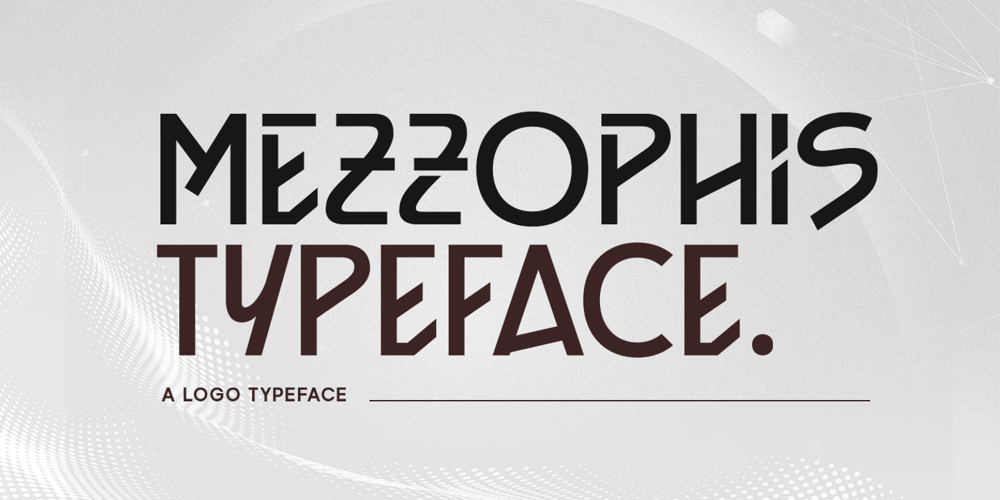
Mezzophis Font Family was designed by Hendry Juanda and published by Letterhend. Mezzophis contains 1 styles and family package options. Mezzophis Typeface is a unique typeface which is speciality made for a logotype. it’s also have techno and futuristic feel. This type of font perfectly made to be applied especially in logo, headline, signage and the other various formal forms such as invitations, labels, logos, magazines, books, greeting / wedding cards, packaging, fashion, make up, stationery, novels, labels or any type of advertising purpose.Features : numbers and punctuation ligatures multilingual alternates / swashes and ligatures PUA encoded We highly recommend using a program that supports OpenType features and Glyphs panels like many of Adobe apps and Corel Draw, so you can see and access all Glyph variations.